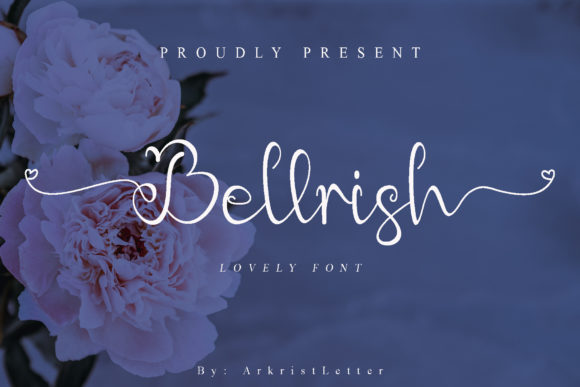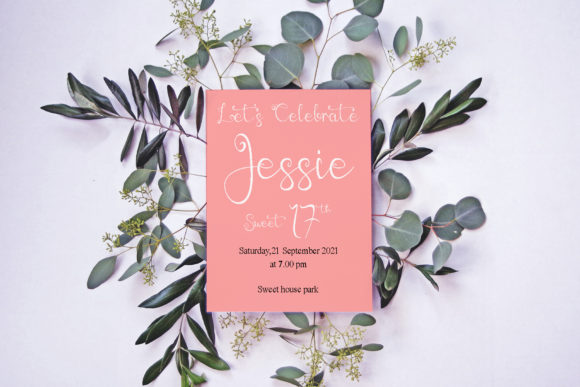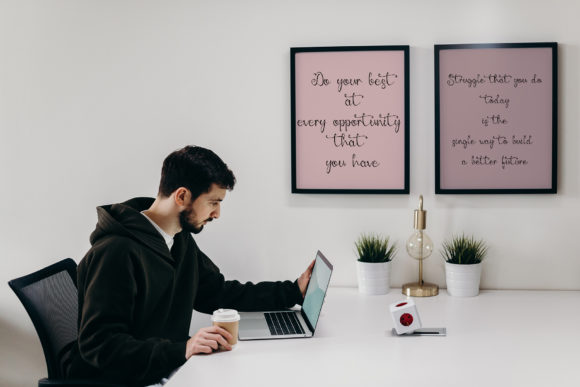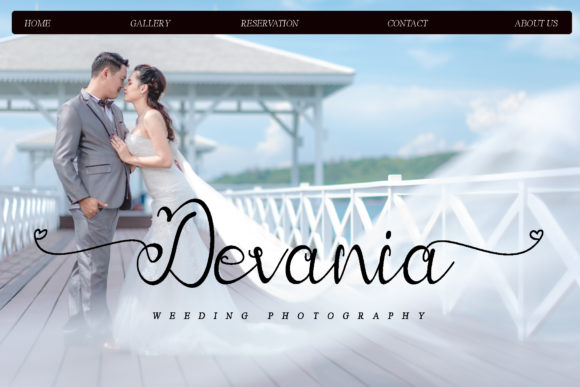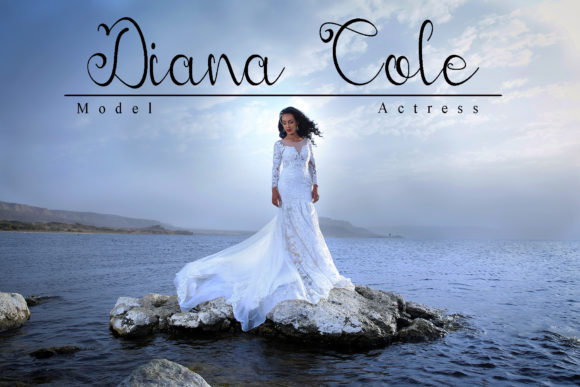
Bellrish Font
About Bellrish Font
Bellrish is a romantic and sweet calligraphy typeface with characters that dance along the baseline. It has a casual, yet elegant touch. This font is PUA encoded which means you can access all of the glyphs and swashes with ease!